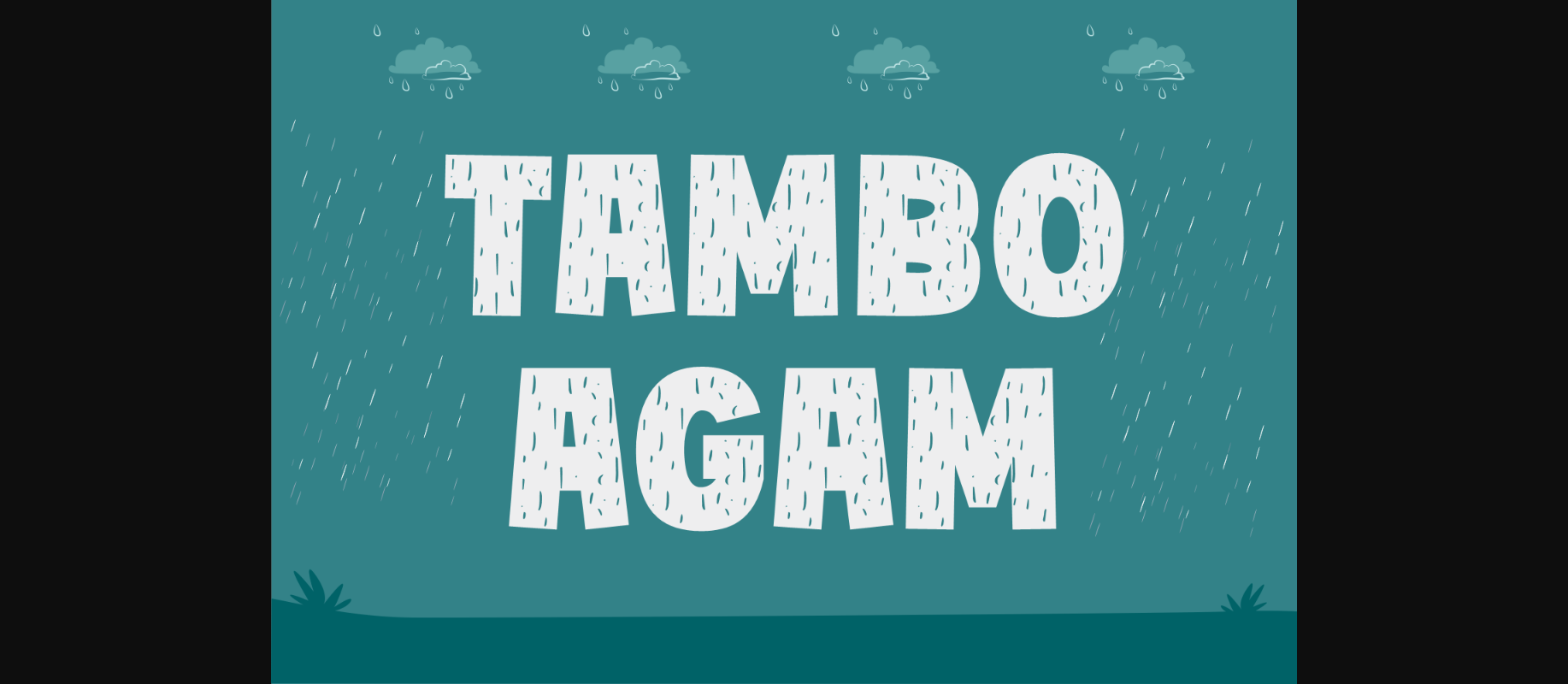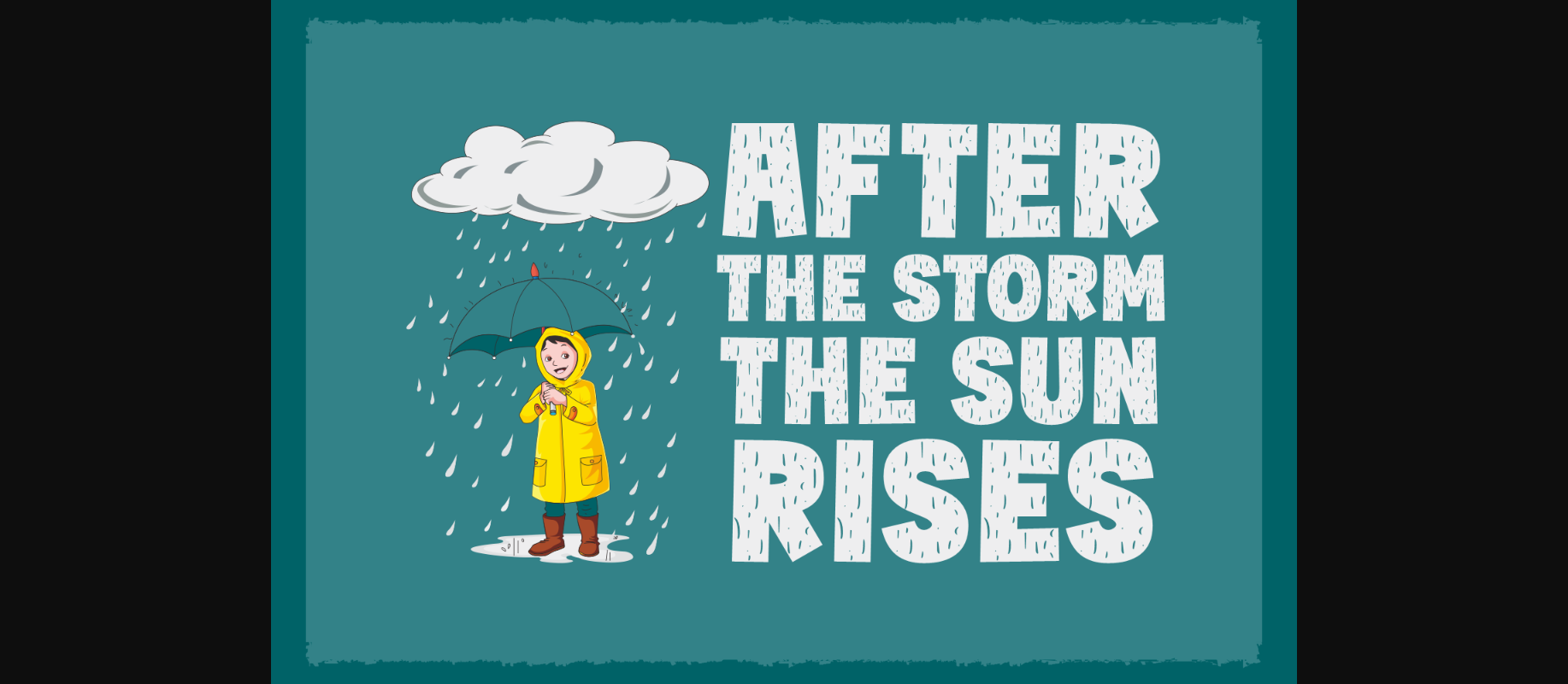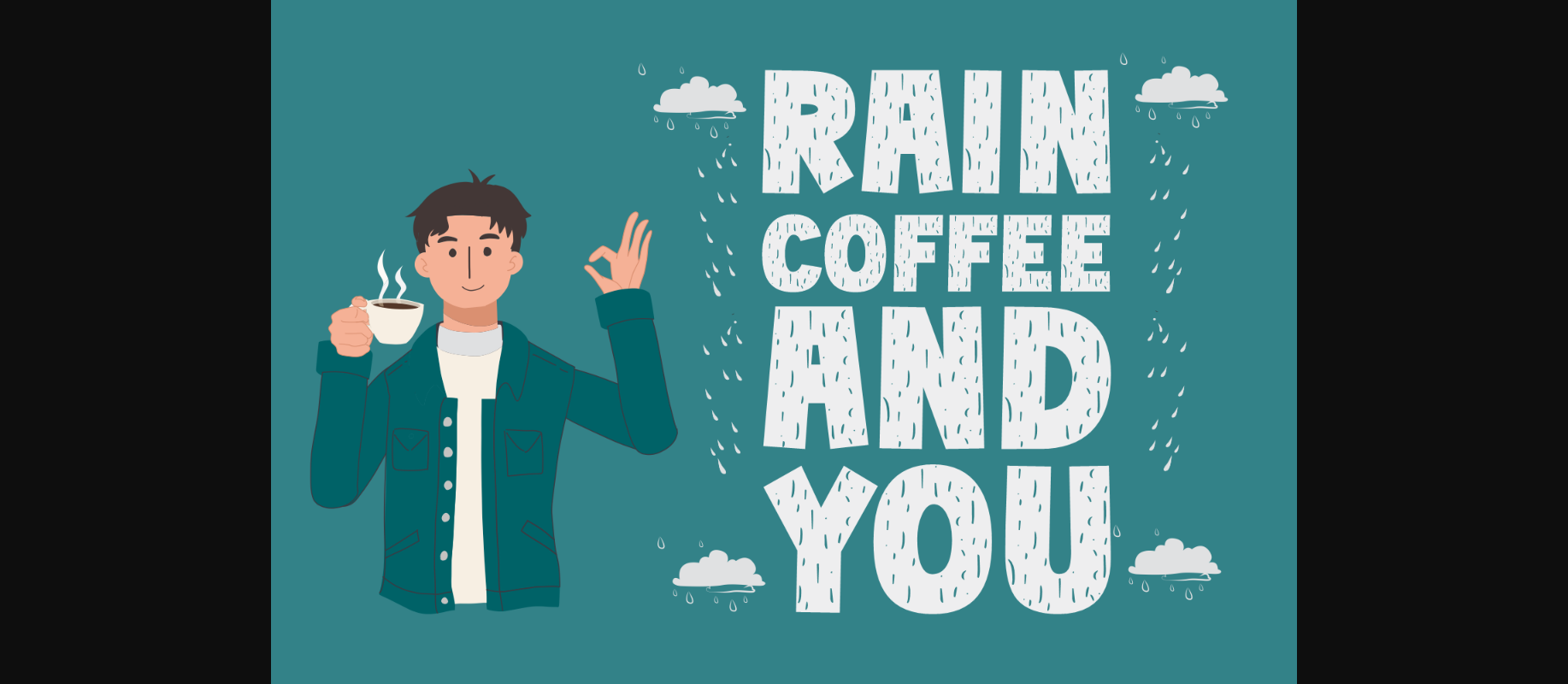
About Tambo Agam Font
Tambo Agam font is a beautifully crafted decorative typeface that captures the essence of rainfall. Each letter is adorned with delicate raindrop elements, creating a unique and soothing design. This font is perfect for adding a touch of tranquility and elegance to your projects, whether it’s invitations, poetry, or branding. Let Tambo Agam font bring the soothing sound of rain to your typography.